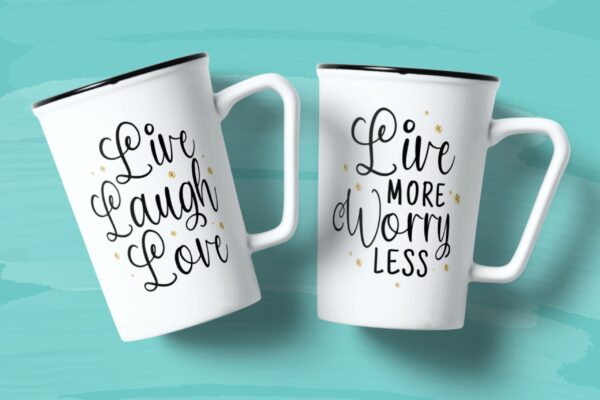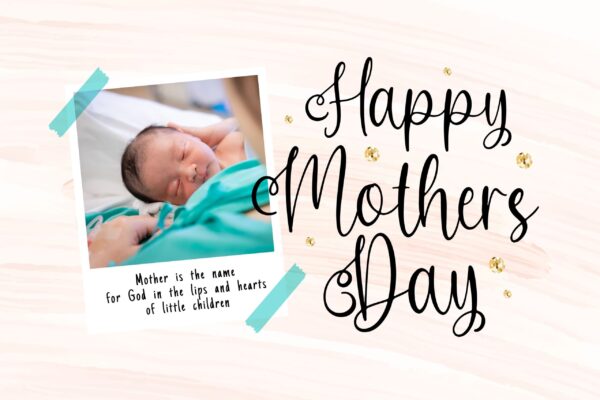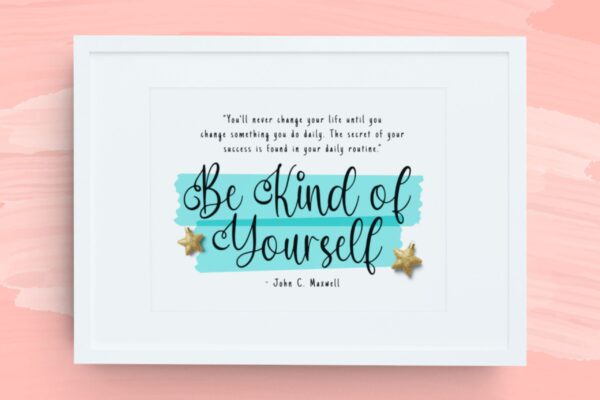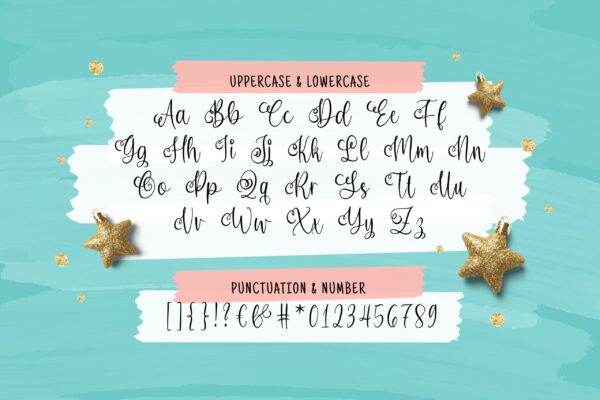
Lovelia Stars is a charming casual script font with a playful yet elegant personality. Its flowing letterforms and smooth curves evoke a handwritten feel that’s perfect for adding a personal touch to your designs. The combination of tall ascenders, graceful loops, and subtle swashes makes Lovelia Stars ideal for anything from wedding stationery and greeting cards to inspirational quotes and product packaging.
Designed to blend warmth and femininity, this font works beautifully in both digital and print applications. It includes a full set of uppercase and lowercase characters, numerals, and punctuation, giving you flexibility for various creative needs. Lovelia Stars shines in projects that call for softness, love, and a bit of sparkle.
Lovelia Stars